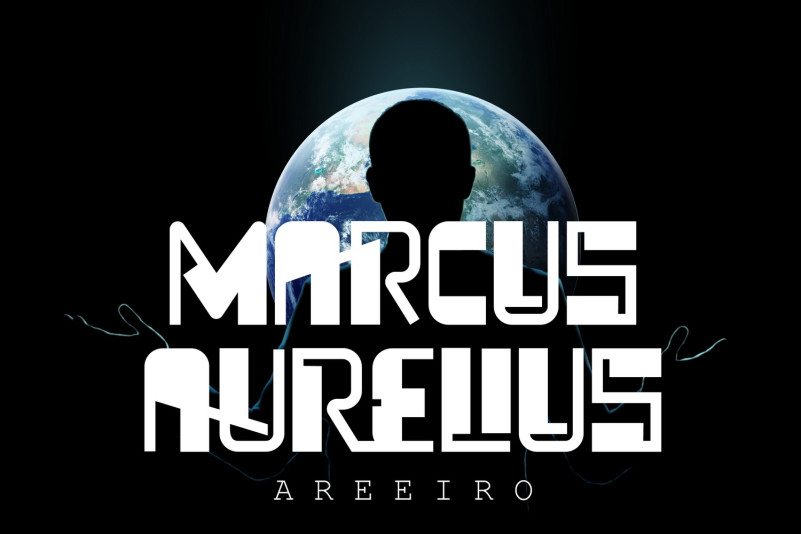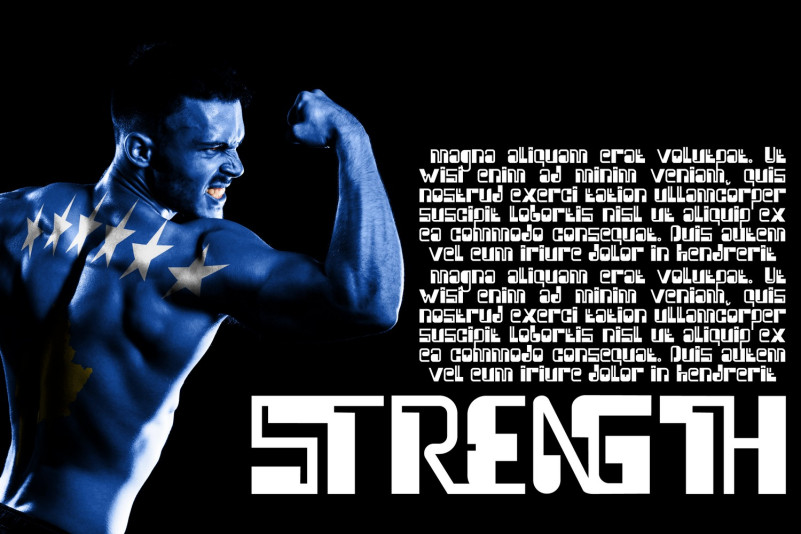
Areeiro Font
AREEIRO Font – Futuristic Tech Font – a futuristic science fiction font. Inspired by the visual of futuristic and techno-based design from the latest and upcoming trends. Perfectly fit for your gaming logo, branding, techno branding, digital assets, game design, UI, UX, synthwave, vaporwave, futuristic poster, contemporary typographic design, techwear apparel, vehicles design, prototype concept, anything you need a boost to the future.
To make it look more unique, here we prepared some ligatures:
AC AD AL AN AR AS AT AU AV CA CE CH CO CT EA EC ED EE EL EM EN EP ER ET FE FO FR GE HA HE HI HO IT IS IR KE LA LE LI LL LO LYME MI NC ND NT NS NE NG OF OM OT OR RS RT RE RO RA RD SH ST SE SI SO TA TE TH TI TO TR UM UN VE